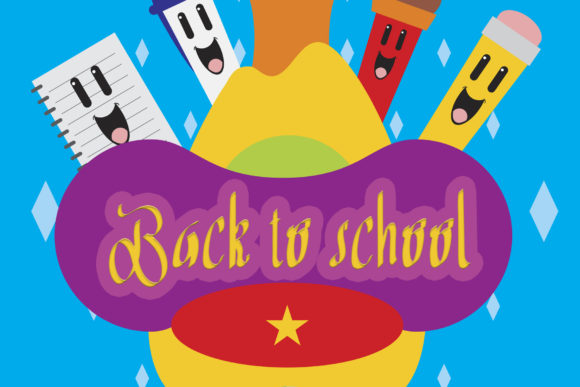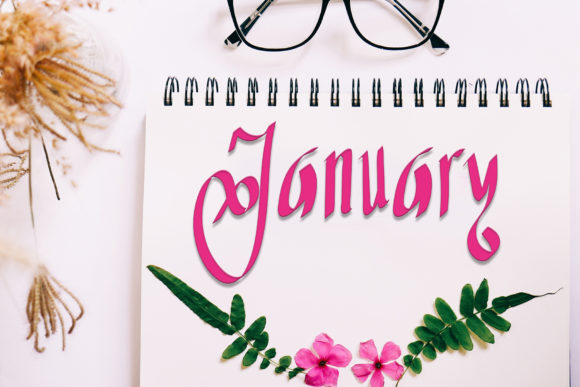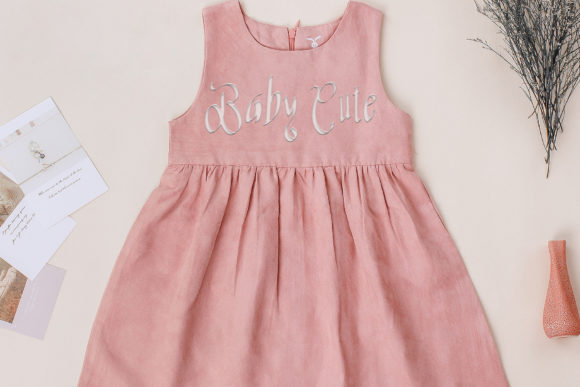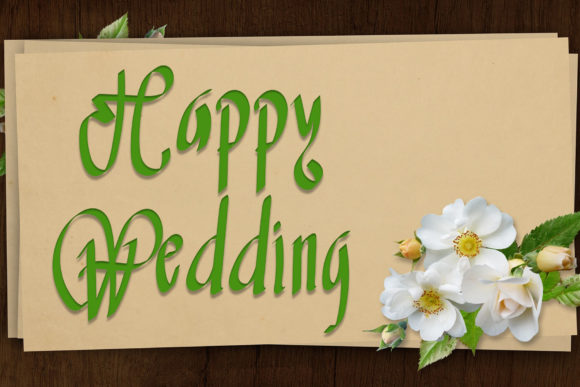
Happy Sweet Font
About Happy Sweet Font
Happy Sweet is a fashionable and graceful handwritten font that adds a touch of elegance to your projects. With its balanced and varied letterforms, this font strikes the perfect balance between being not too thin and not too thick, making it visually appealing and versatile.
The design of Happy Sweet exudes a sense of fashion and style, making it well-suited for a variety of projects. Whether you’re working on branding, invitations, packaging, logos, or any other creative endeavor, this font can elevate the beauty of your designs.
The letterforms of Happy Sweet are carefully crafted, ensuring a harmonious flow and balanced proportions. The result is a font that feels graceful and refined, adding a touch of sophistication to your projects. Its versatility allows it to be used in both formal and informal contexts, making it suitable for a wide range of design applications.
Whether you’re aiming for a romantic wedding invitation, an elegant logo, or a stylish headline, Happy Sweet can be a valuable asset in enhancing the overall aesthetic of your designs. Its graceful nature and varied letterforms provide flexibility and creativity in expressing your ideas.
With Happy Sweet, you have the freedom to experiment with different sizes, styles, and color combinations to create unique and visually pleasing compositions. Its fashionable and graceful qualities ensure that your designs stand out and leave a lasting impression on your audience.
In conclusion, Happy Sweet is a fashionable and graceful handwritten font that adds a touch of elegance and beauty to your projects. Its balanced and varied letterforms make it versatile and suitable for a wide range of design applications. Embrace the sophistication and style of Happy Sweet to enhance the visual impact of your creative endeavors.